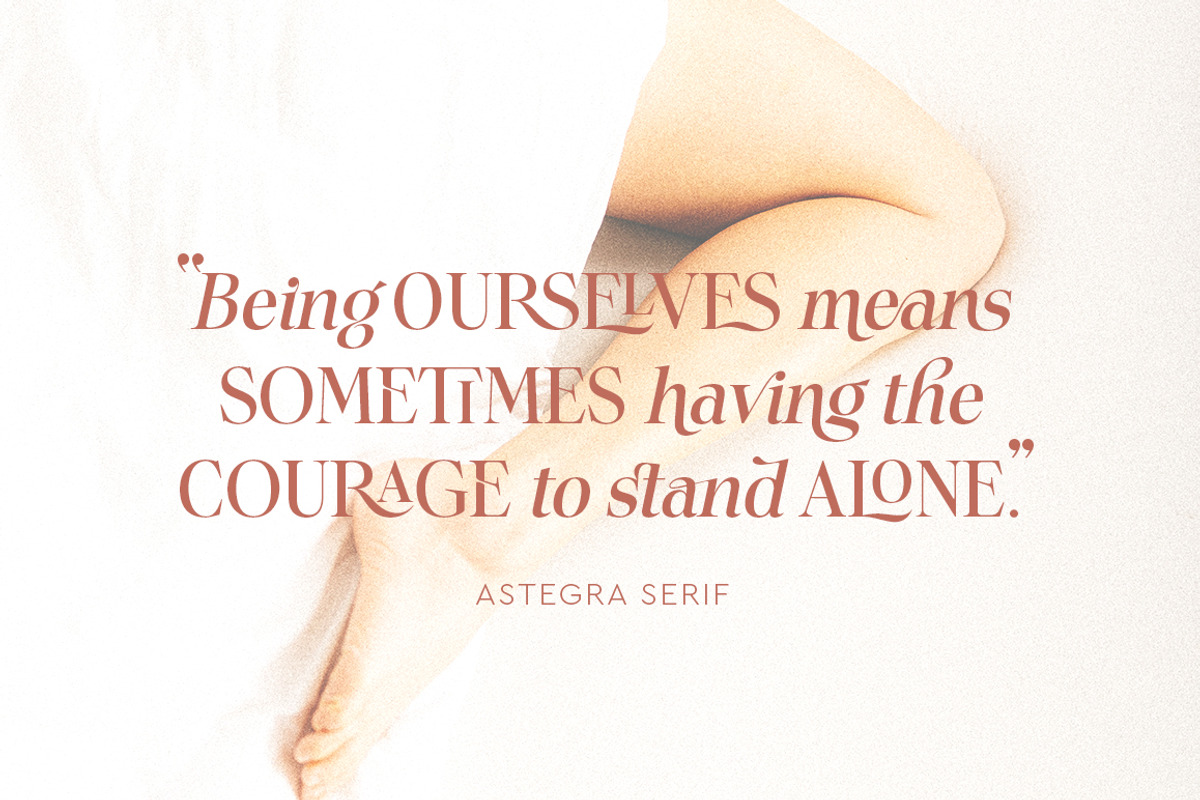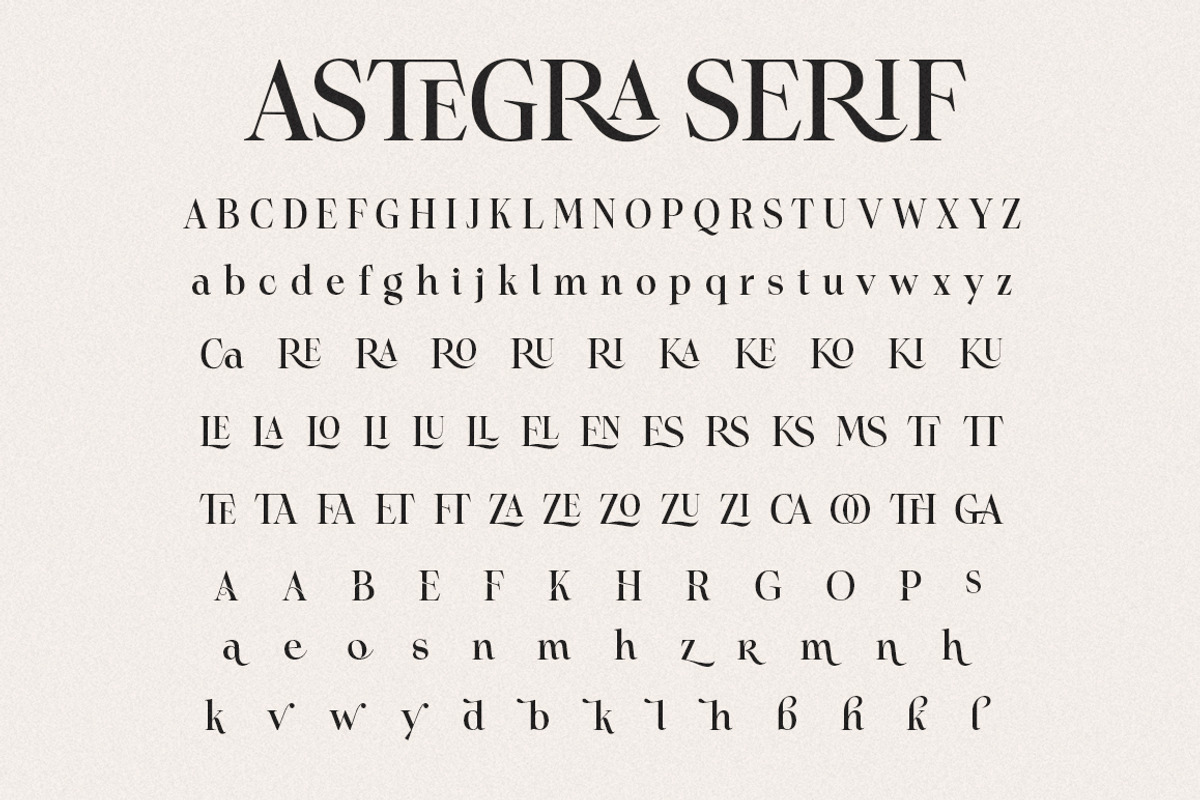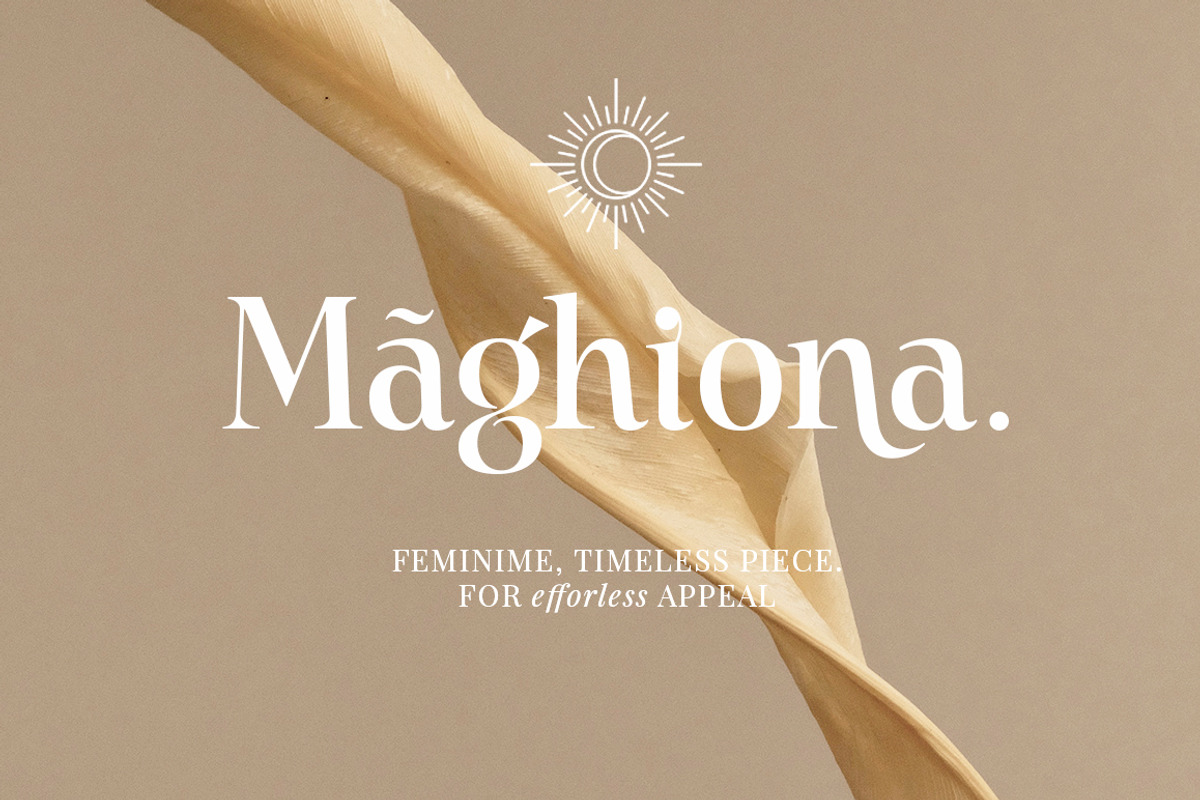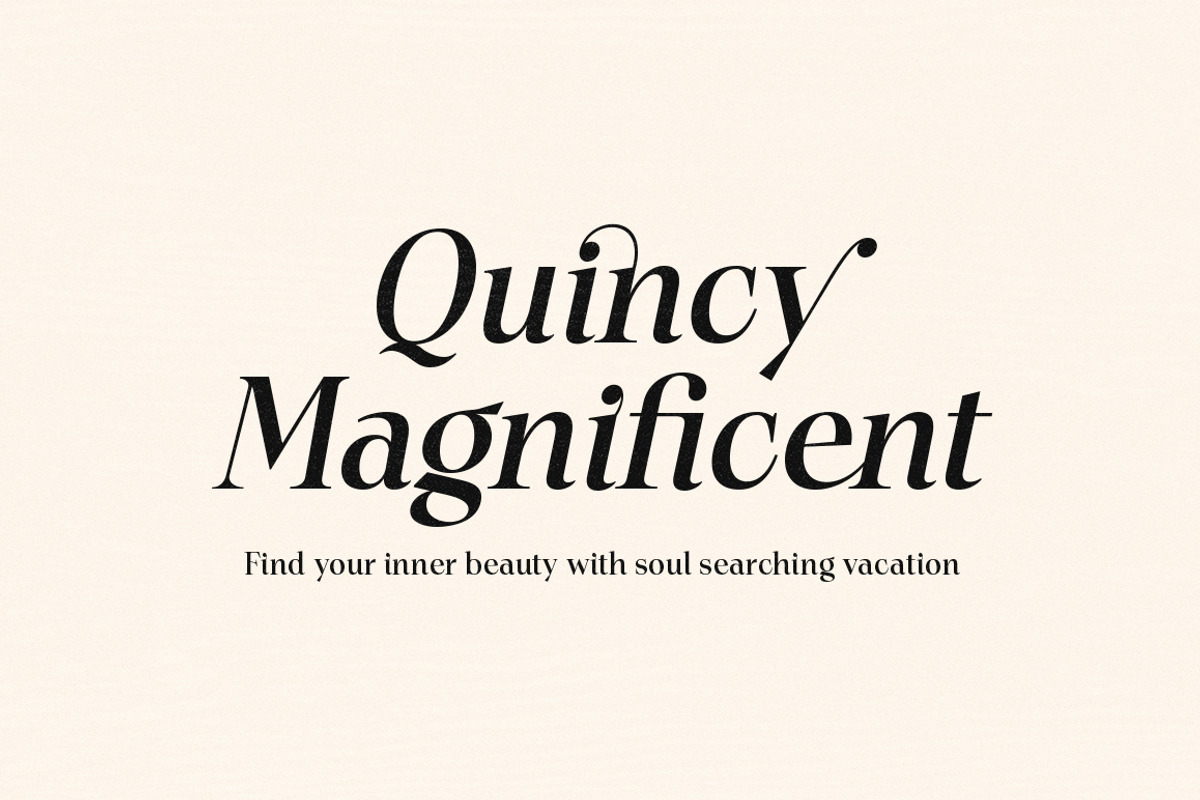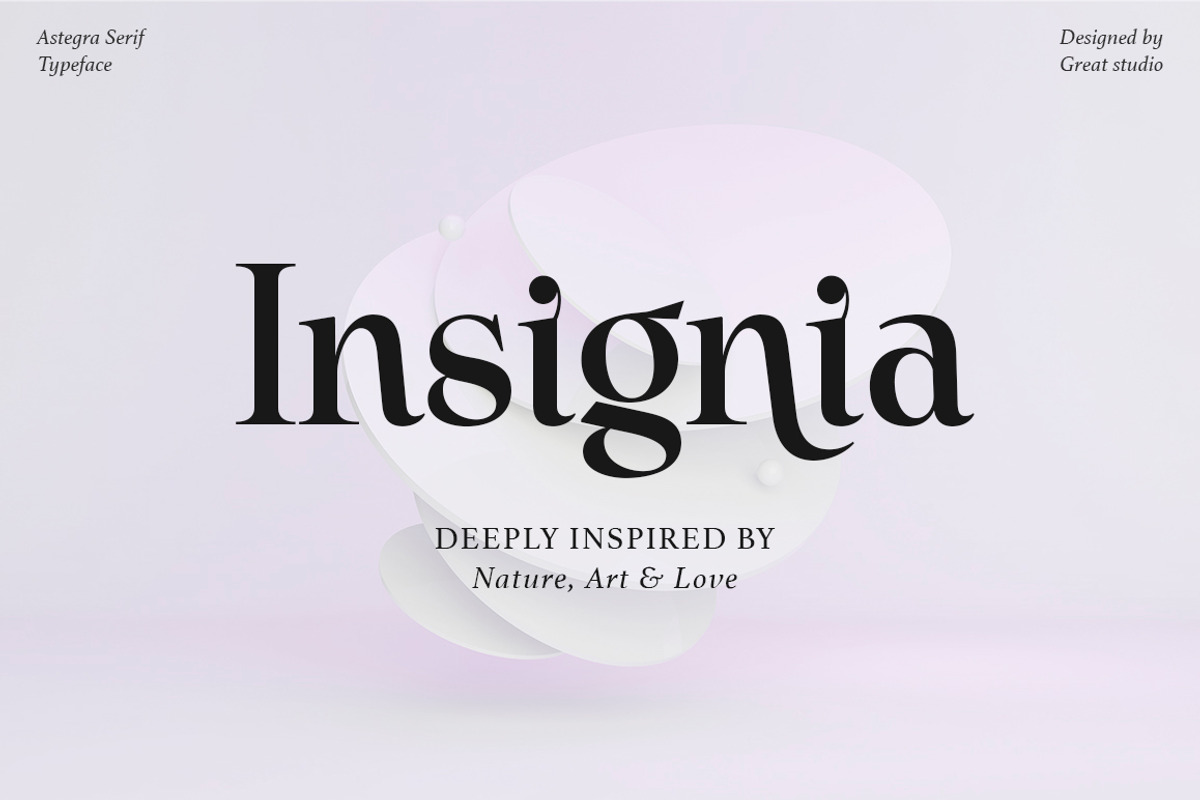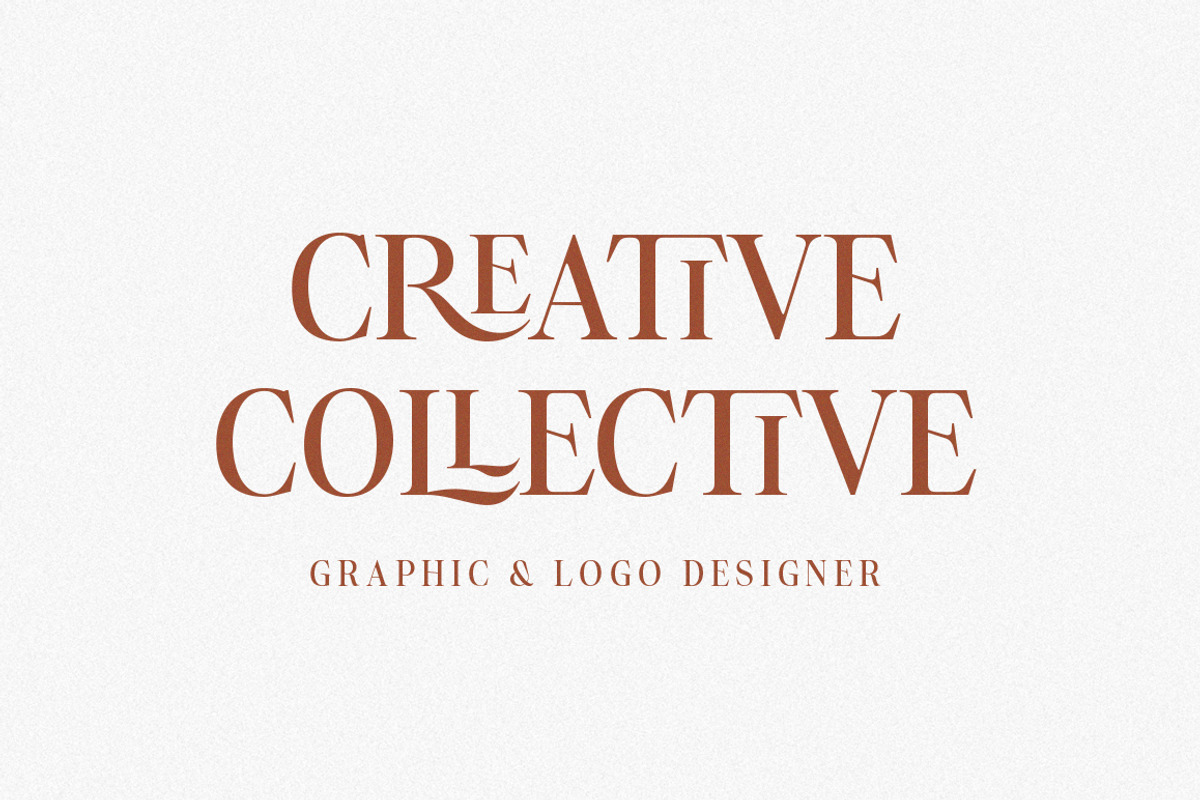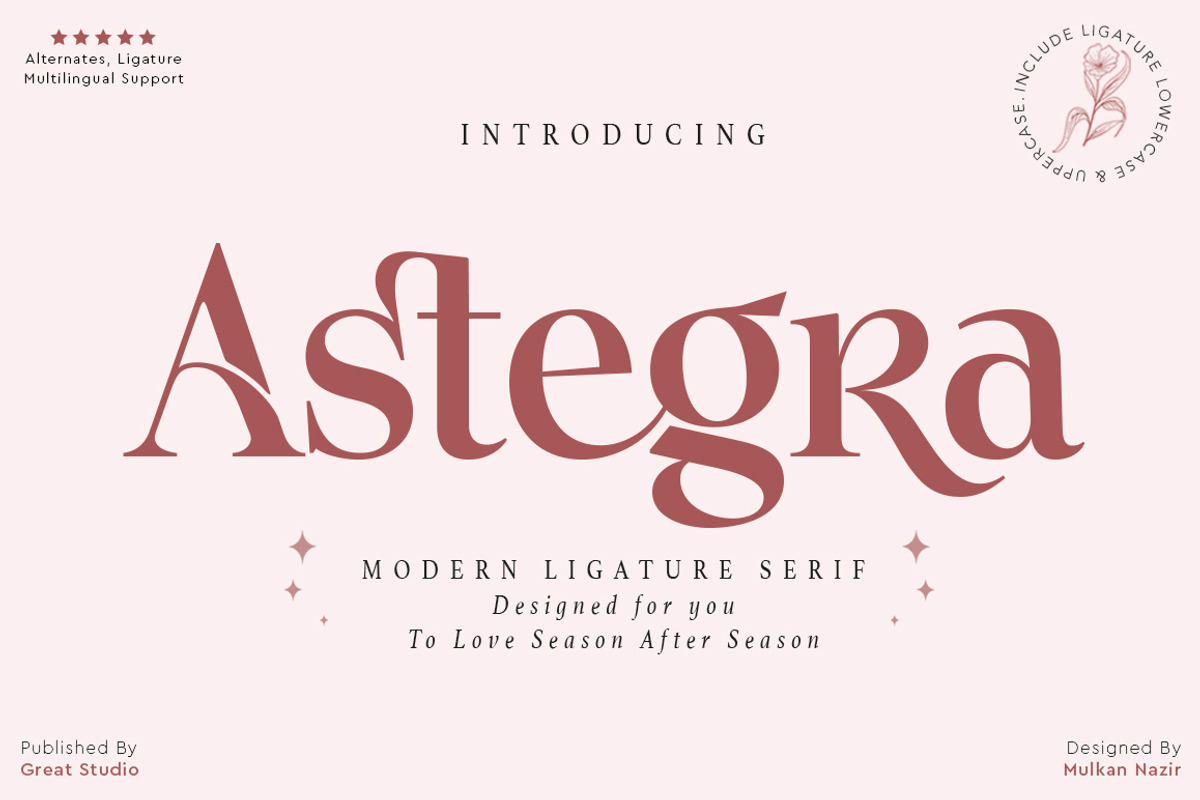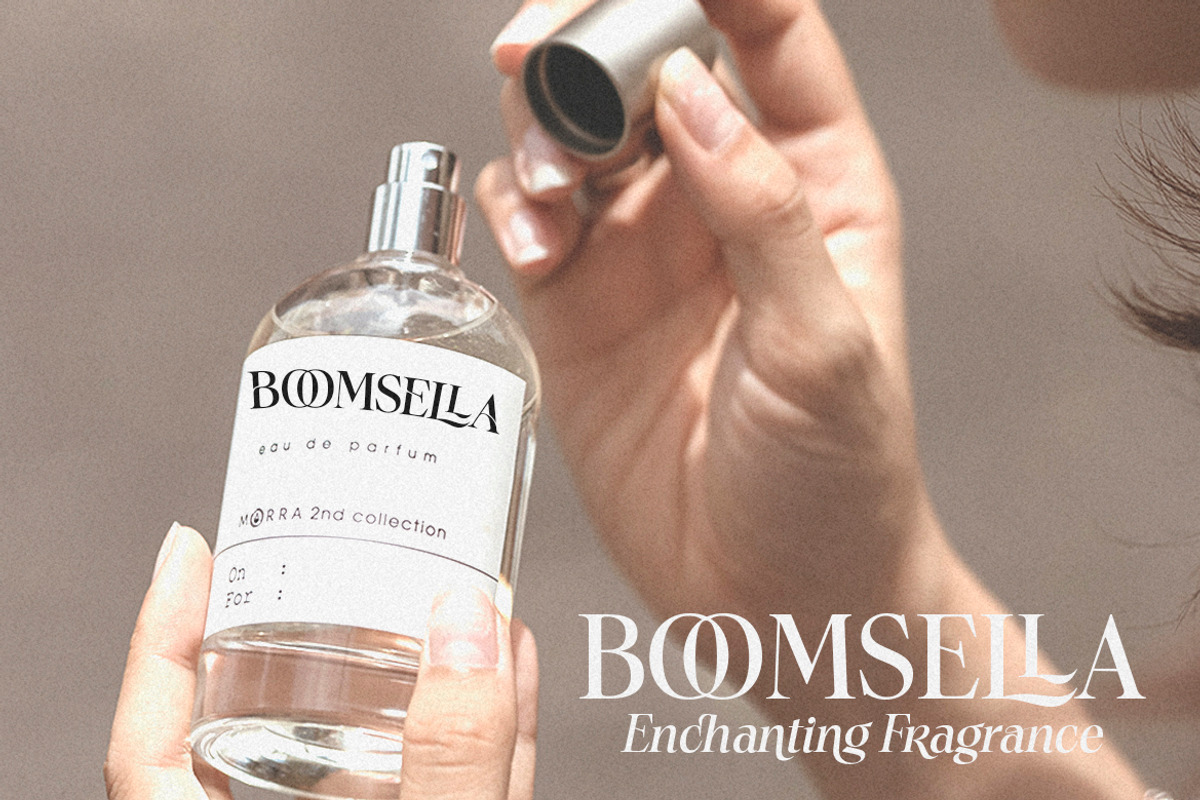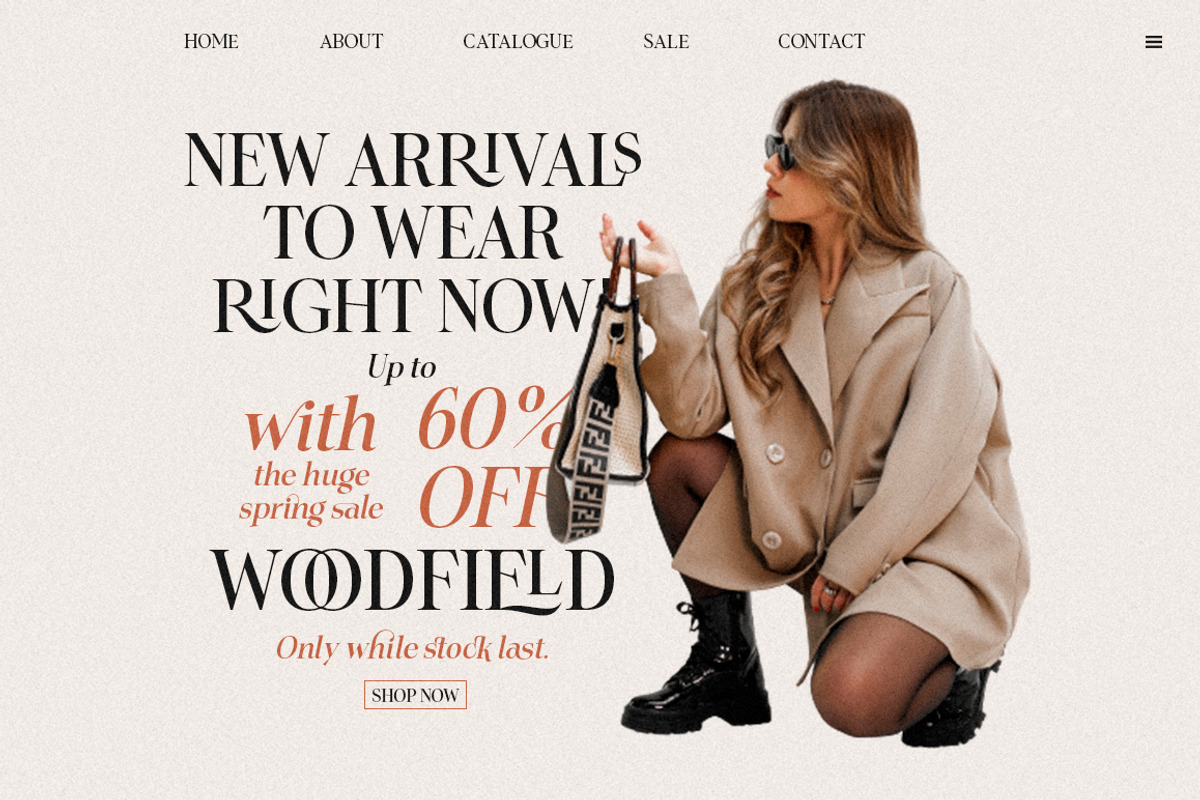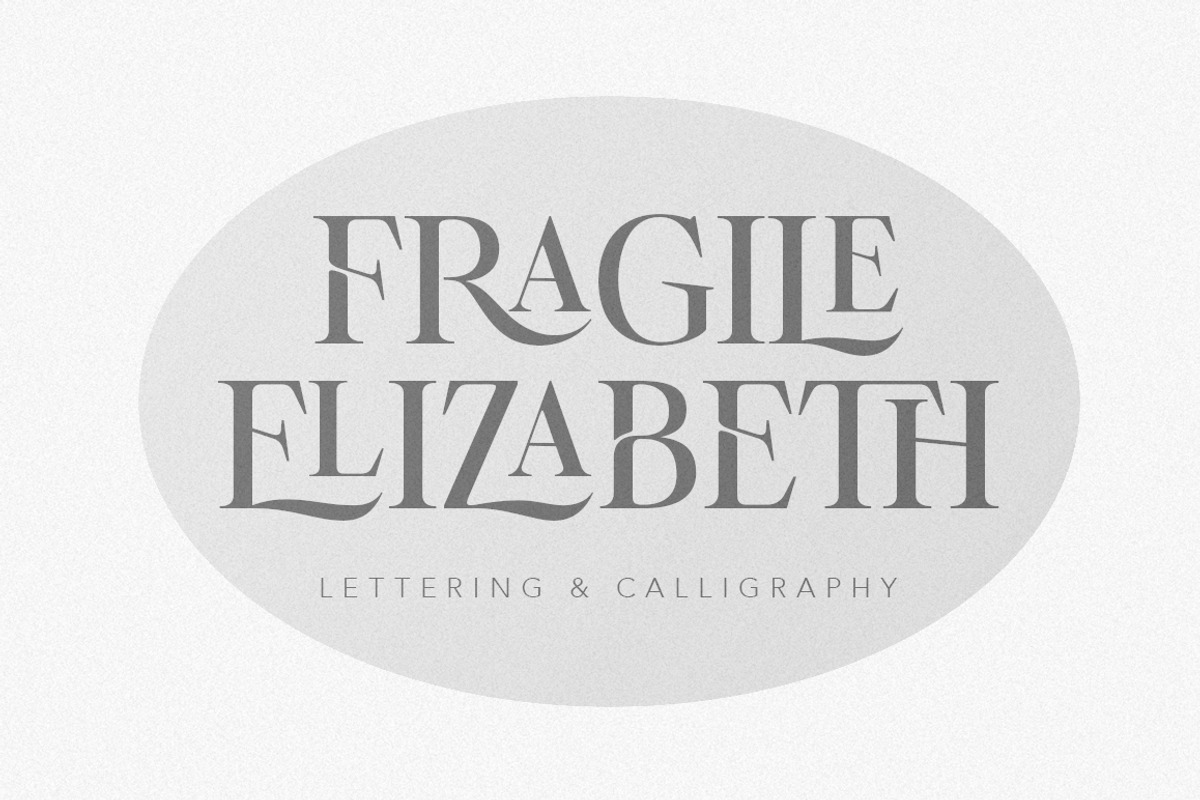
Astegra - Ligature Serif
Astegra is a modern serif font with a unique ligature style, a high contrast and light font perfect for feminine logo signs, fashion heads & editorial designs, branding projects, Clothing Branding, packaging, magazine headings, advertising, T-shirts, postcards and much more.
Astegra is also included full set of:
- Uppercase and lowercase letters
- Automatic ligatures for Uppercase and Lowercase
- Multilingual characters